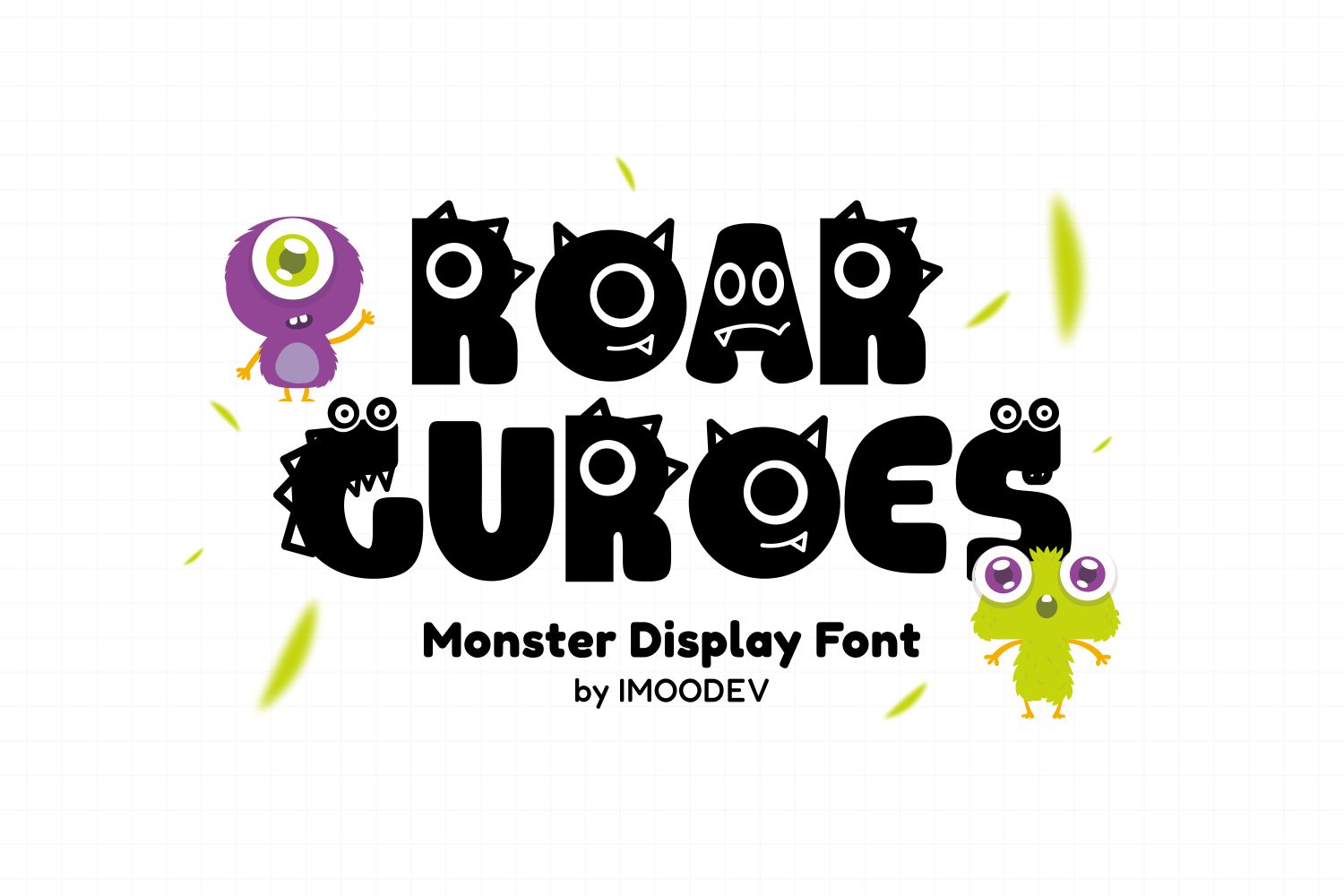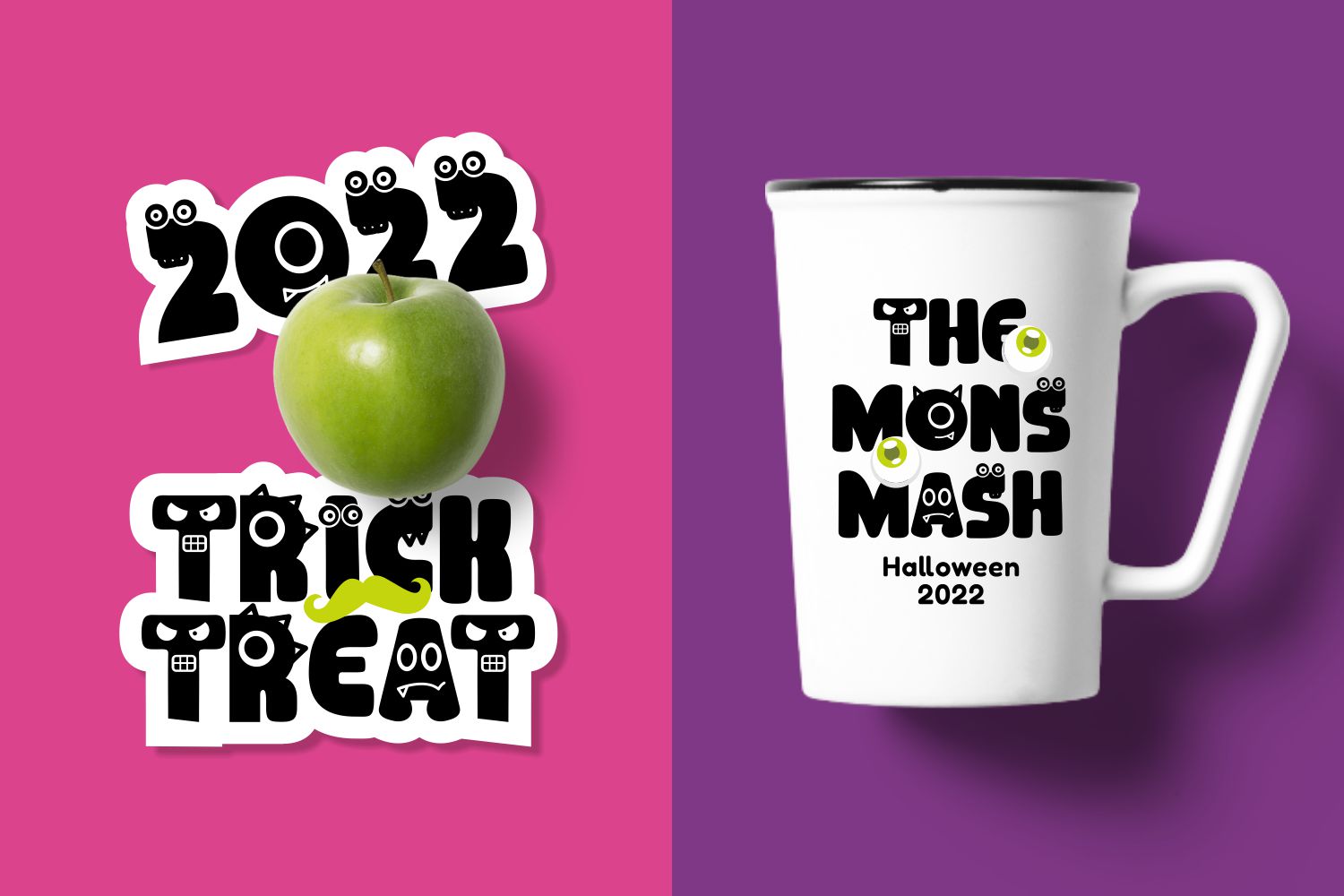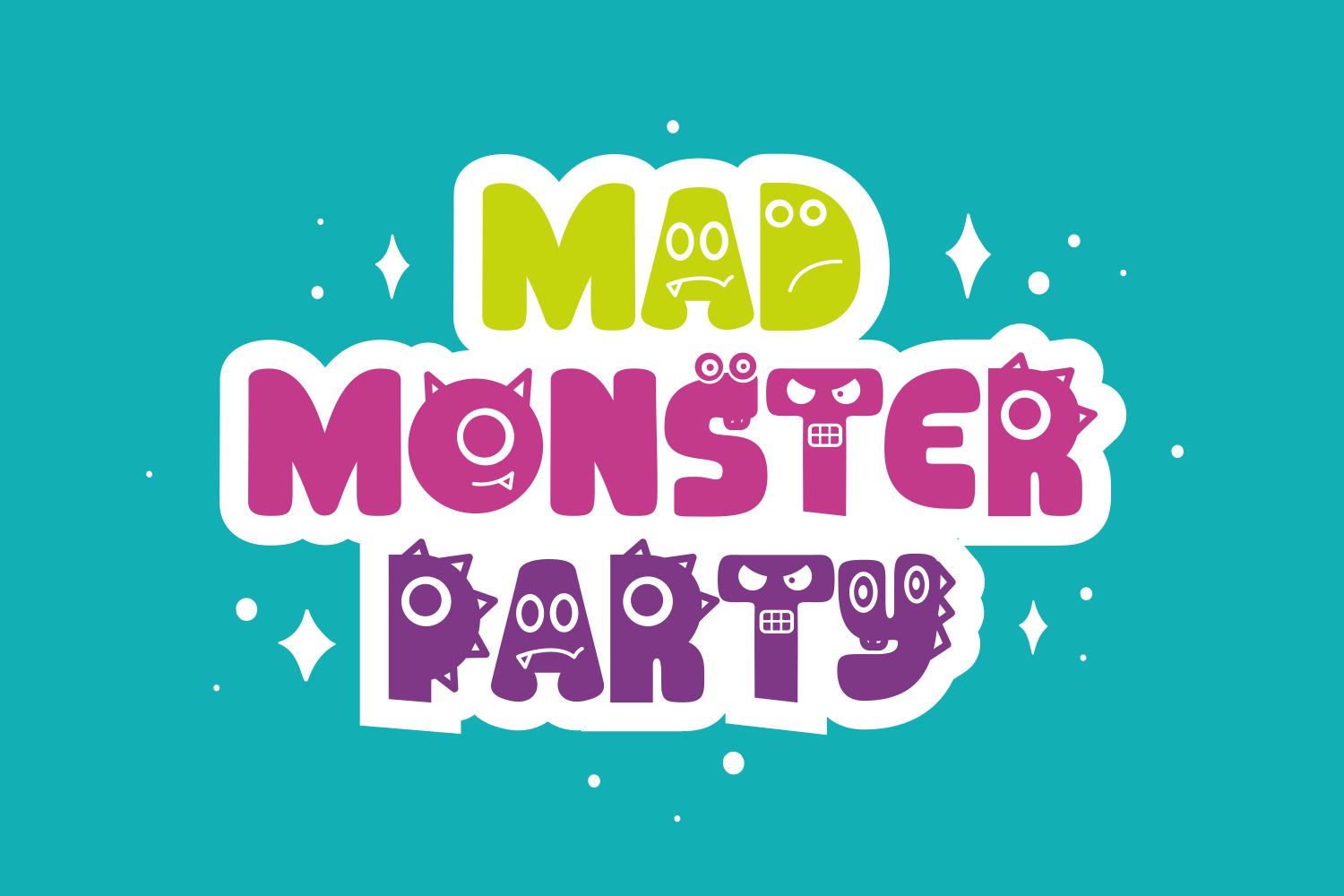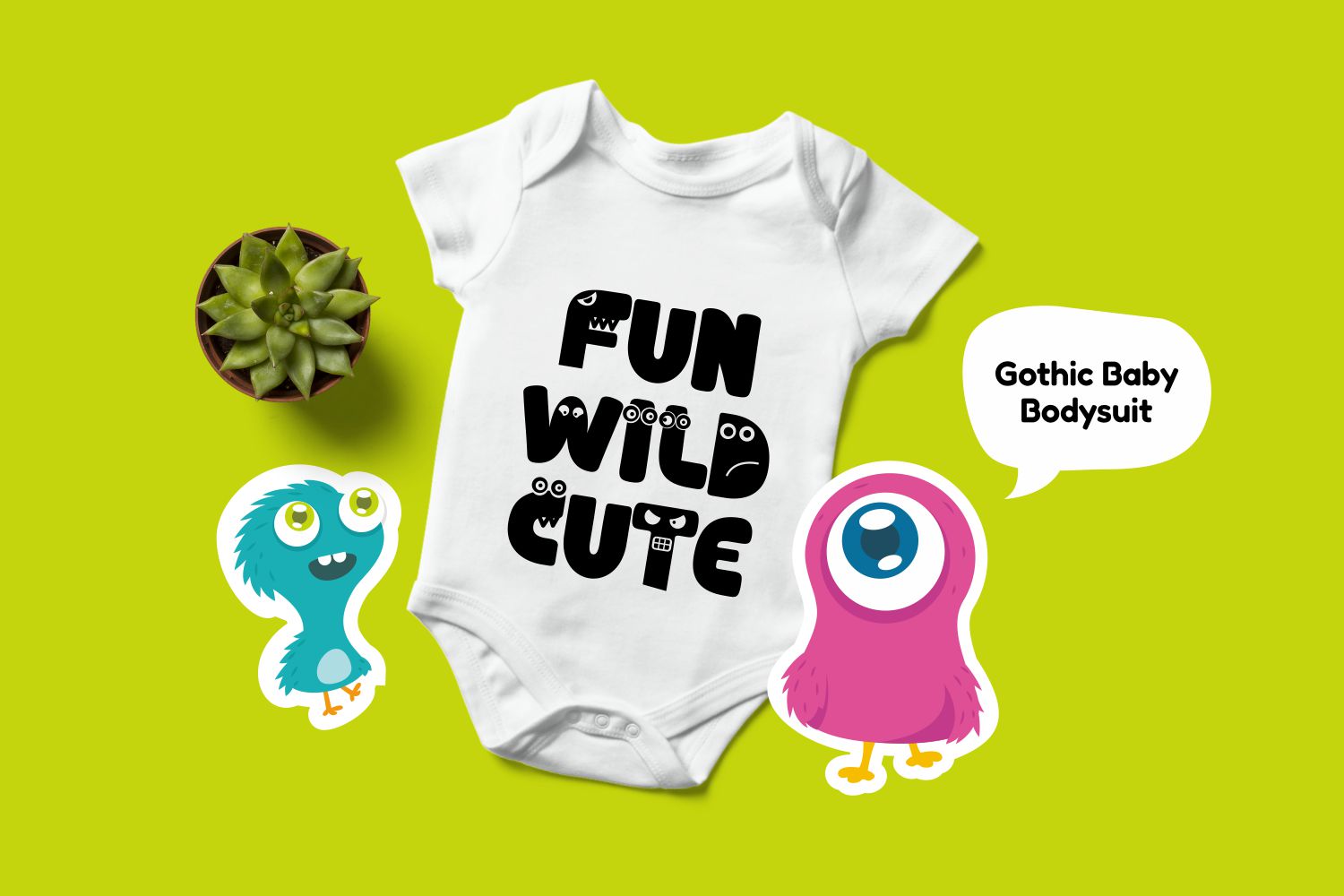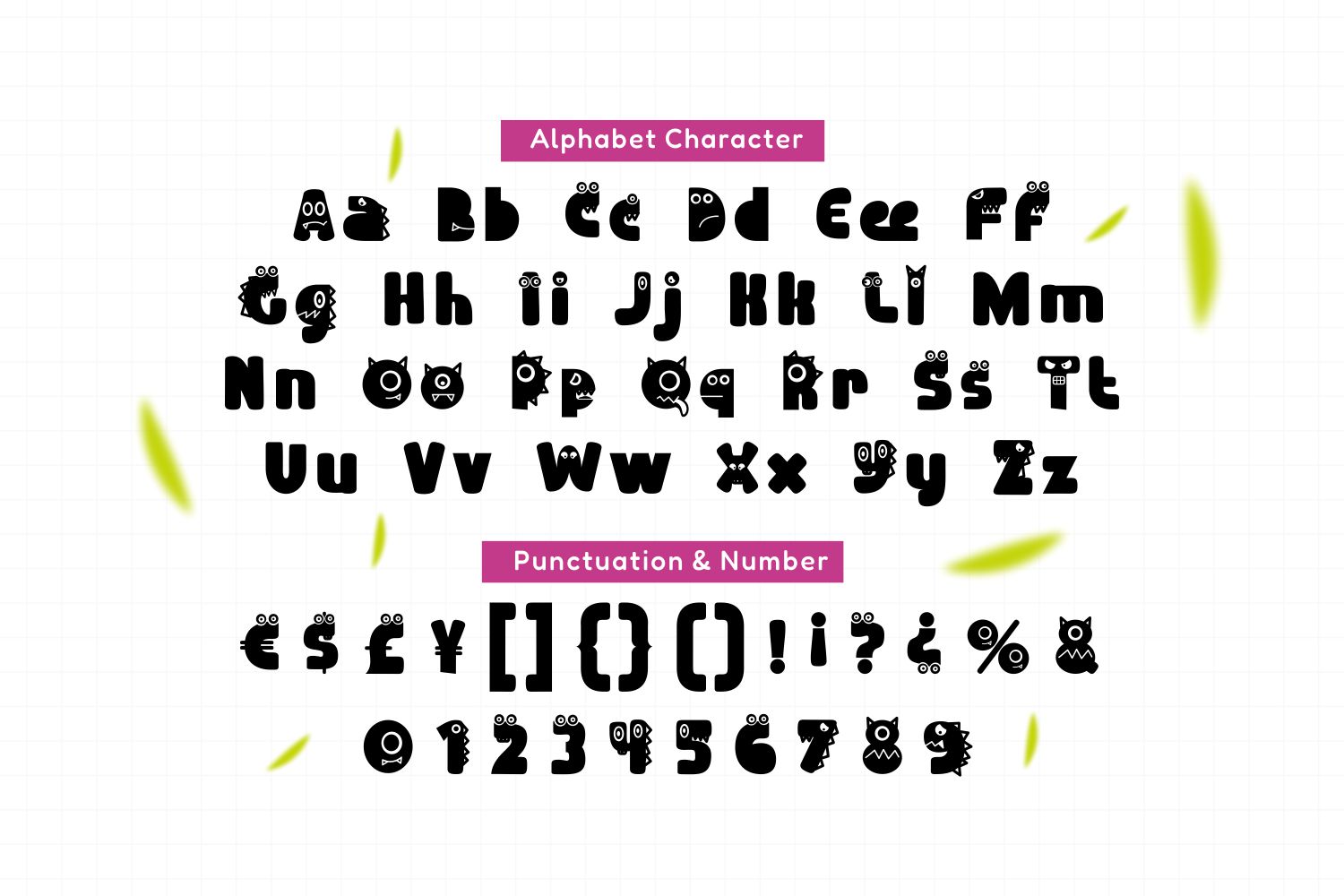
Roar Guroes is a playful monster display font designed to spark imagination and fun in every project. Each letter is uniquely illustrated with monster-inspired features such as eyes, fangs, and quirky expressions, making it perfect for children’s designs, party invitations, Halloween themes, or any project that needs a touch of whimsy. The bold and rounded shapes ensure readability while maintaining a cheerful and friendly look, making it ideal for both print and digital media.
This font includes a full set of uppercase and lowercase letters, numbers, and punctuation, all decorated with lively monster details. Its versatility makes it a great choice for branding, packaging, apparel design, posters, stickers, and more. Whether used for kids’ products or creative campaigns, Roar Guroes brings a sense of excitement and personality that instantly grabs attention.